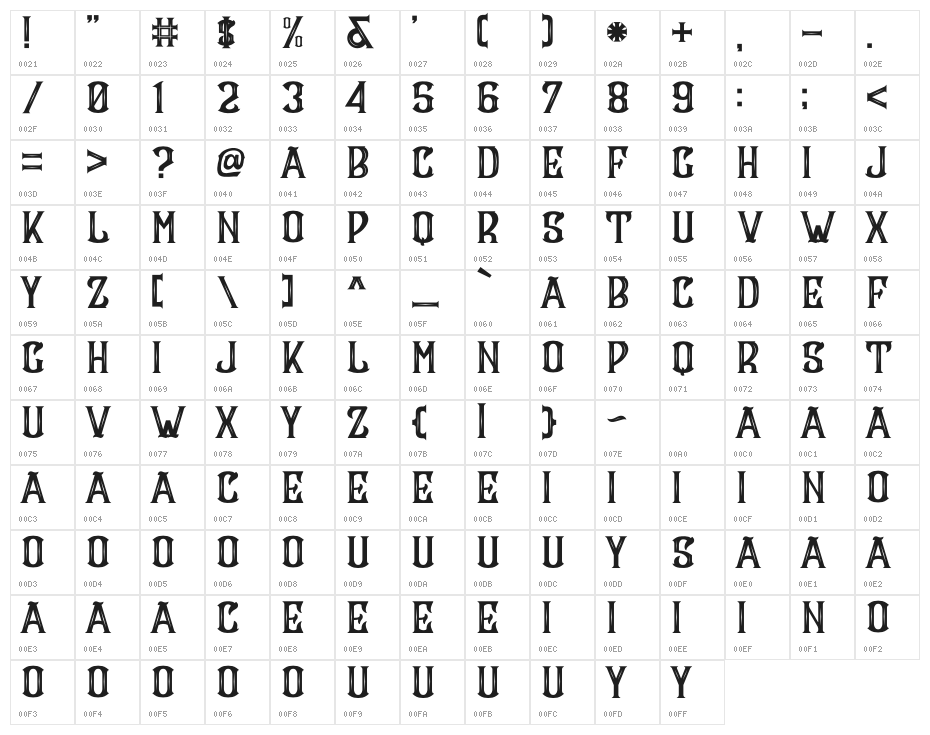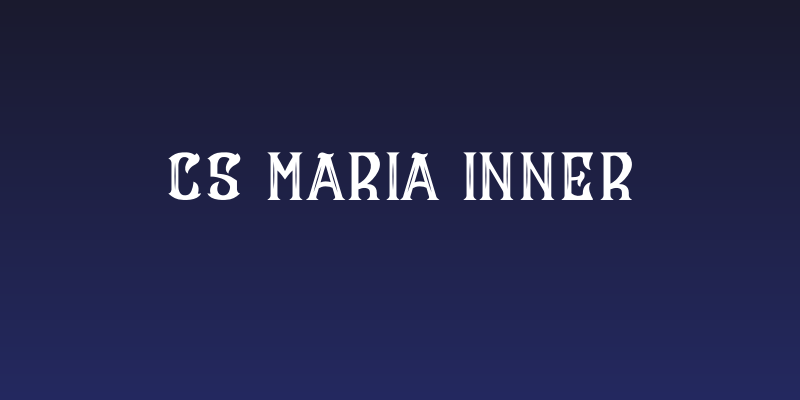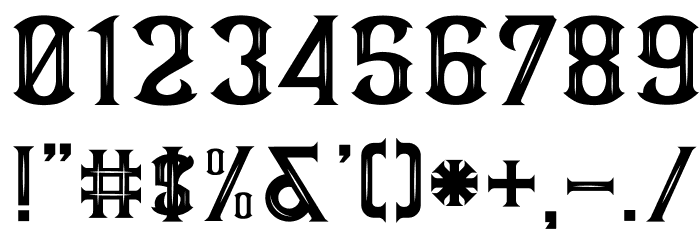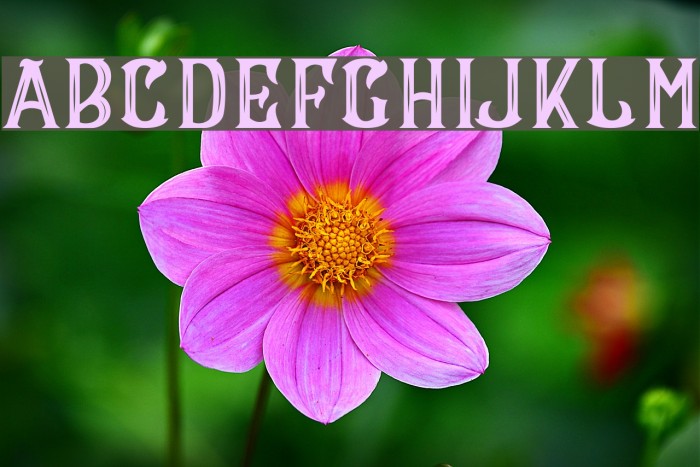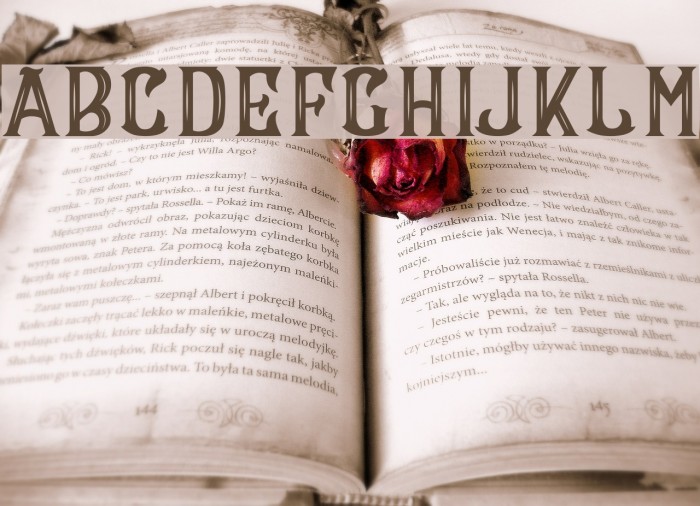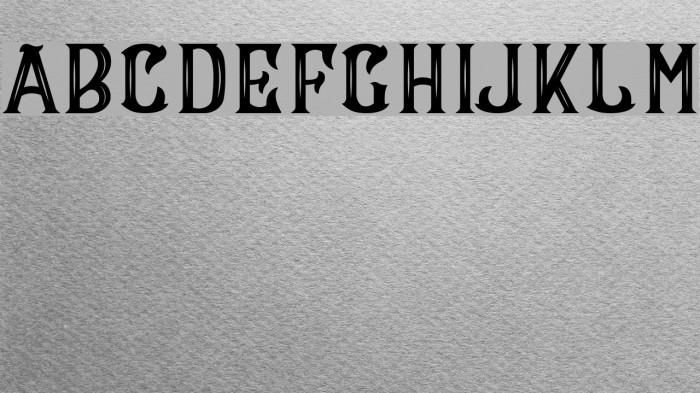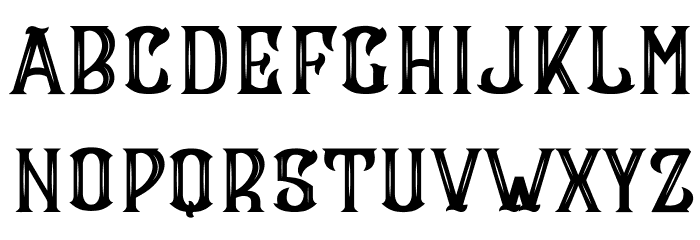
CS Maria Inner Font
CS Maria Inner Description
This font features a bold and striking design with a strong emphasis on angular and geometric shapes. The characters are crafted with a high contrast between thick and thin strokes, giving it a dramatic and eye-catching appearance. The uppercase letters exhibit a unique blend of sharp edges and curves, creating a sense of movement and energy. The lowercase letters maintain this dynamic style, ensuring consistency throughout the typeface. Numbers and special characters are designed with the same attention to detail, making them stand out prominently. This font's distinct style is reminiscent of Gothic or medieval influences, yet it maintains a modern edge.
| Overall Style | Modern Gothic |
| Proposed Projects | Ideal for use in branding, posters, album covers, and any project requiring a dramatic and bold typographic statement. |